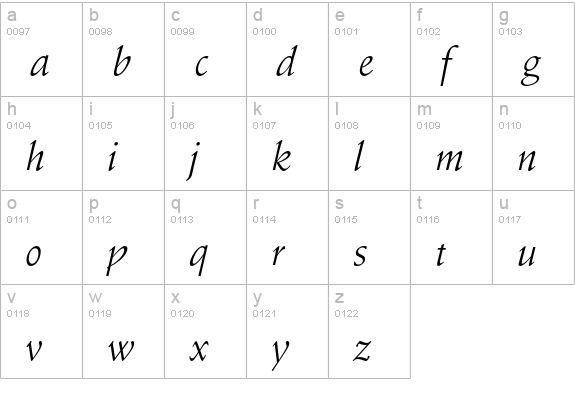
Stempel Schneidler Std Italic is a distinctive, italic variant in the Stempel typeface family \xE2\x80\x94 well suited to design and typography projects.
Stempel Schneidler Std Italic font exudes elegance and sophistication with its graceful slanted design. The italicized characters possess a timeless charm, making them ideal for adding a touch of refinement to any project. The flowing curves and balanced proportions of this typeface create a harmonious visual impact that captivates the eye. What's even more appealing is that Stempel Schneidler Std Italic font is available for free download at FontsMarket.com. This means that you can easily enhance your designs with this exquisite typeface without any cost. Whether you're working on a branding project, editorial design, or any other creative endeavor, this font will elevate your work to new heights. Embrace the beauty and versatility of Stempel Schneidler Std Italic font and let your creativity shine.